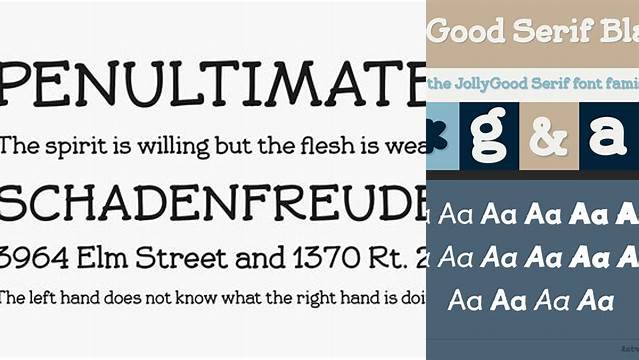
Free Jollygood Serif Regular Font: Download & Design Guide
Jollygood Serif Regular Font: Your Guide to a Free and Stylish Typeface
Hey there, design enthusiasts! Ever found yourself on the hunt for the perfect font, something that screams elegance, readability, and a touch of classic charm? Well, you might just be in luck because today, we're diving deep into the wonderful world of the Jollygood Serif Regular font, and the best part? It's available for free! That's right, folks, we're talking about a font that brings a sophisticated flair to your projects without emptying your wallet. This article will serve as your ultimate guide, helping you understand everything from the font's characteristics and how to download it, to where you can use it and some design tips to make your work really pop. So, grab a coffee, settle in, and let's explore the Jollygood Serif Regular font together. This detailed exploration ensures you know exactly what makes this font a go-to choice for designers and creatives alike. We'll cover the essential elements that make the font stand out, helping you understand why it might just be the missing piece in your next creative endeavor.
What Makes Jollygood Serif Regular Font Special?
So, what's the buzz about the Jollygood Serif Regular font? Well, it's a classic serif font, meaning it has those elegant little strokes – or serifs – at the end of each letter. These serifs give the font a traditional, refined look, perfect for projects where you want to convey a sense of trust, sophistication, or timelessness. The "Regular" in the name tells us it's the standard weight of the font, making it super versatile for various applications. This means you can use it for body text, headlines, or even in branding materials. The font is designed to be highly readable, ensuring your audience can easily digest your message. It's this balance of style and functionality that makes Jollygood Serif Regular a standout choice. It's not just about aesthetics; it's about creating a positive user experience through clear and engaging typography. The font's design emphasizes clarity and readability, ensuring that your content is accessible and engaging to your target audience. Its clean lines and balanced proportions make it an ideal choice for both print and digital media.
When we delve deeper, we see that the font has been meticulously crafted. The designers paid close attention to the spacing between letters and the overall balance of each character. This attention to detail results in a font that is not only visually appealing but also highly functional. The font's adaptability across different platforms and media types is another key feature. Whether you're designing a website, creating marketing materials, or working on a book, Jollygood Serif Regular adapts effortlessly. This versatility allows designers to maintain a consistent and cohesive brand identity across all communication channels.
Where Can You Use the Jollygood Serif Regular Font?
This font is incredibly versatile, which means you can use it in a ton of different projects. From print to digital, personal to professional, Jollygood Serif Regular has you covered. Let's look at some specific examples to spark your creativity:
1. Website Design: In web design, this font can be used for headlines, body text, and even navigation elements. Its readability makes it an excellent choice for creating a user-friendly website. You can use it to give your website a classic, elegant feel, perfect for businesses that want to project a sense of trust and authority. Ensure that the font complements the overall design and that it aligns with your brand identity.
2. Branding and Marketing: If you're working on a logo, business card, or any other branding material, this font could be a great choice. Its traditional style conveys professionalism and reliability. It's perfect for businesses that value tradition and want to convey a sense of permanence. The font can enhance your brand's message and create a lasting impression on your audience. Its classic appeal is ideal for businesses looking for a timeless aesthetic.
Final Thoughts: Embracing the Jollygood Serif Regular Font
So there you have it, guys! The Jollygood Serif Regular font is a fantastic free option for any designer looking for a touch of elegance and readability. It's versatile, easy to install, and can be used in a wide variety of projects. With the tips above, you're well on your way to creating stunning designs using this beautiful font. Embrace the elegance and flexibility of this font, and let your creativity soar. We hope this guide has been helpful, and happy designing! Go forth and create some amazing stuff! And remember to always have fun with your designs. The font is just a tool, and the real magic happens when you bring your creativity to the table.